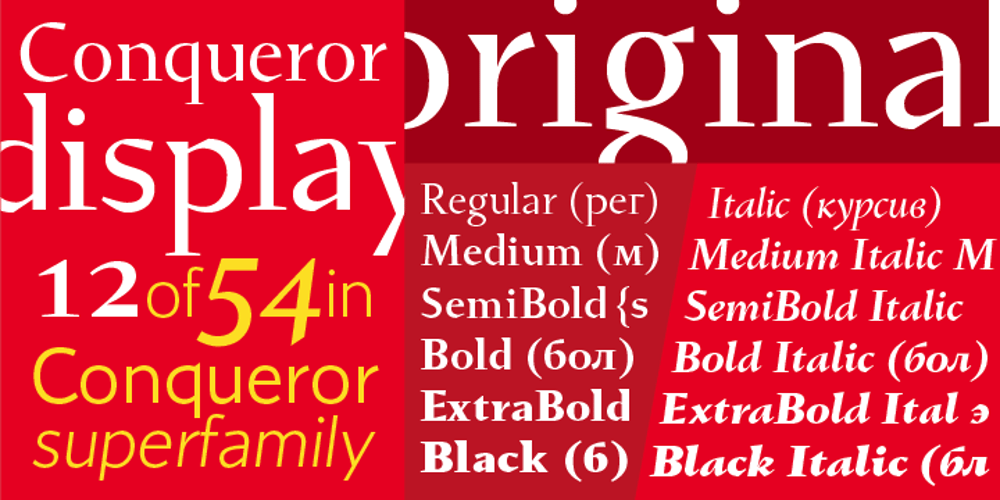
Conqueror Display
Conqueror Display font
Conqueror Display Font Family was designed by Yuri Gordon and published by Letterhead Studio-YG. Conqueror Display contains 11 styles and family package options. Conqueror the Display — the first of four subfamilies of a super family Conqueror. Font proportions are taken from the fifteenth century Venetian antique, but details are simplified, and the quantity of serifs is reduced to a minimum. It is a font with unusual, sharp image. Display works well in a combination with other members of the Conqueror super family.